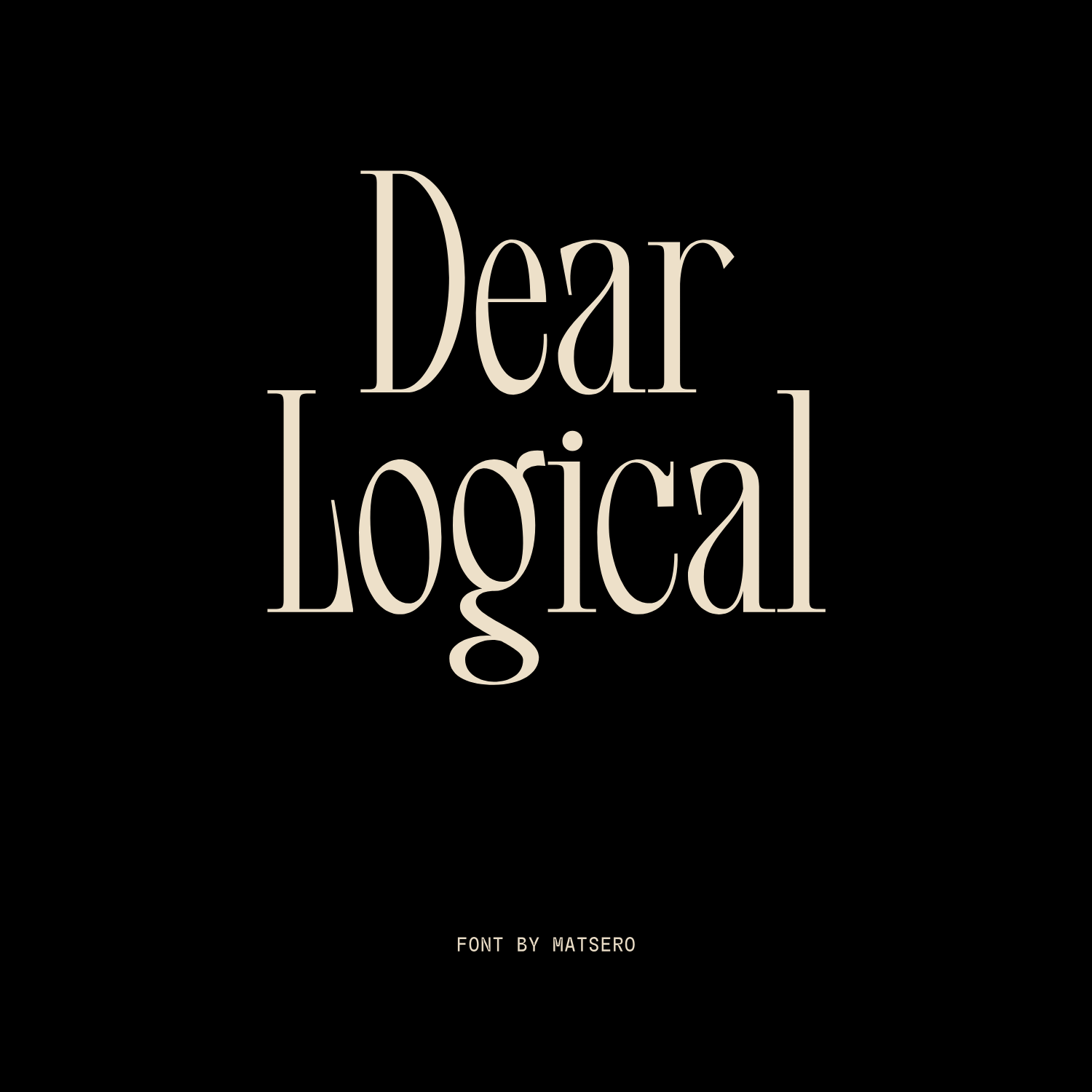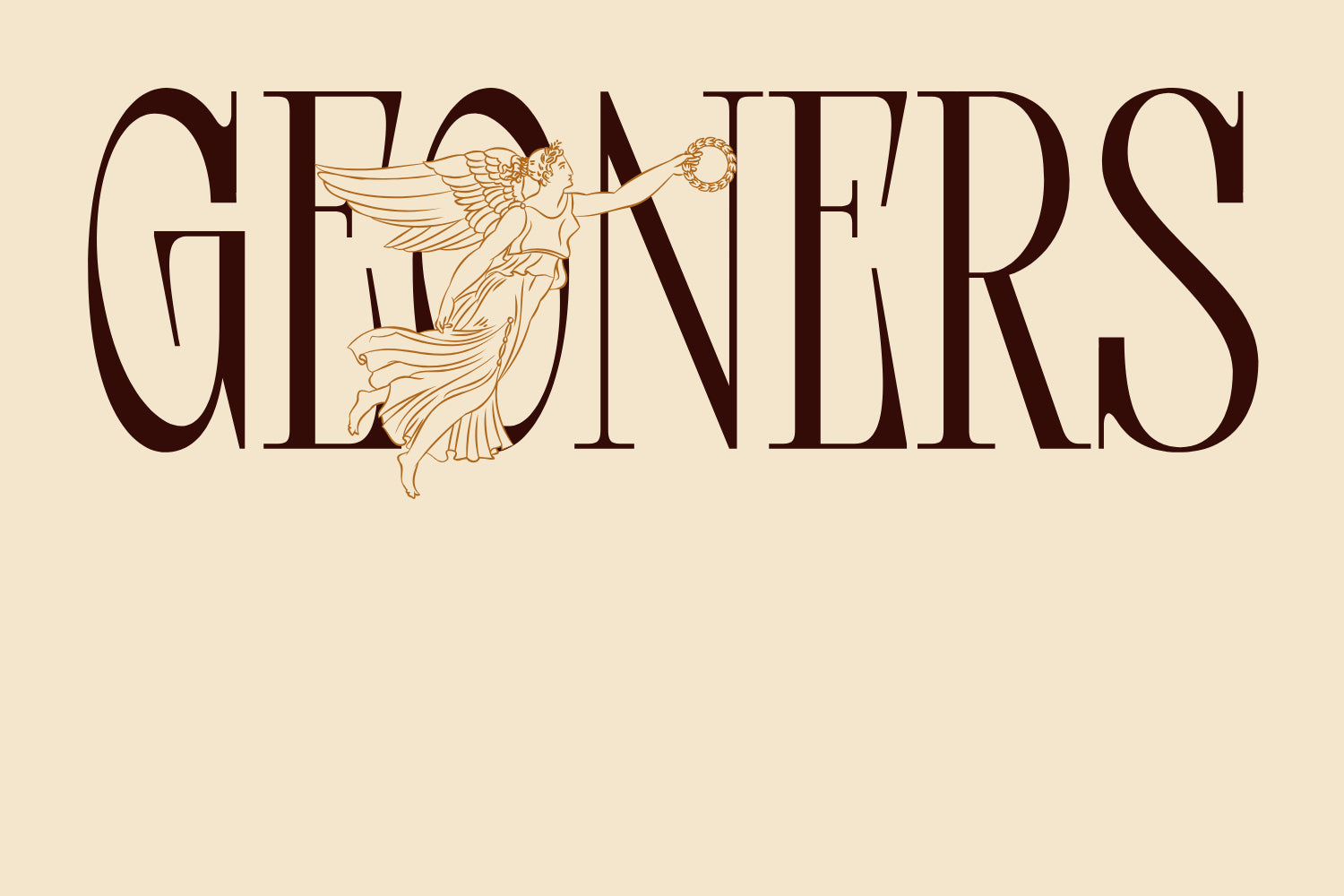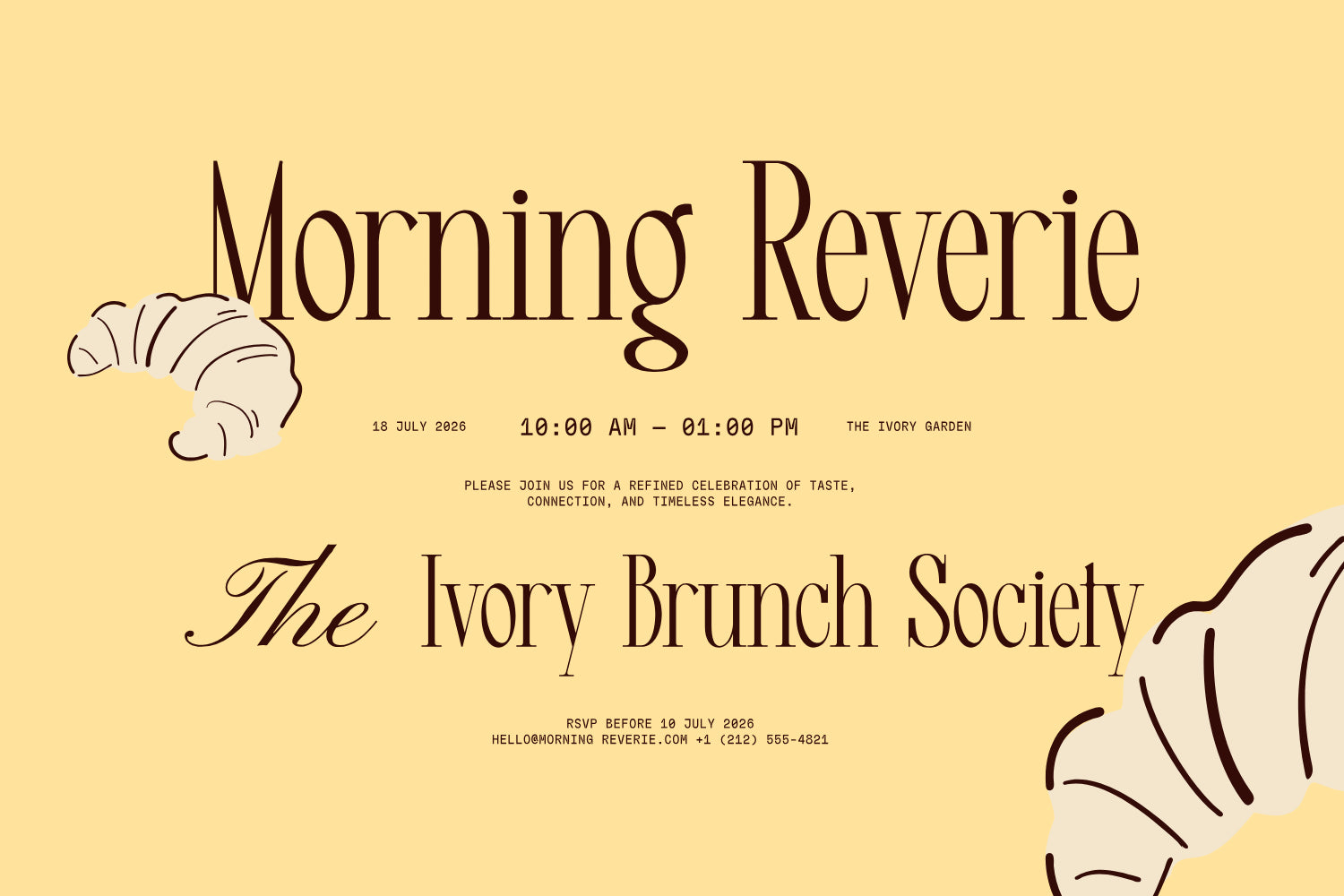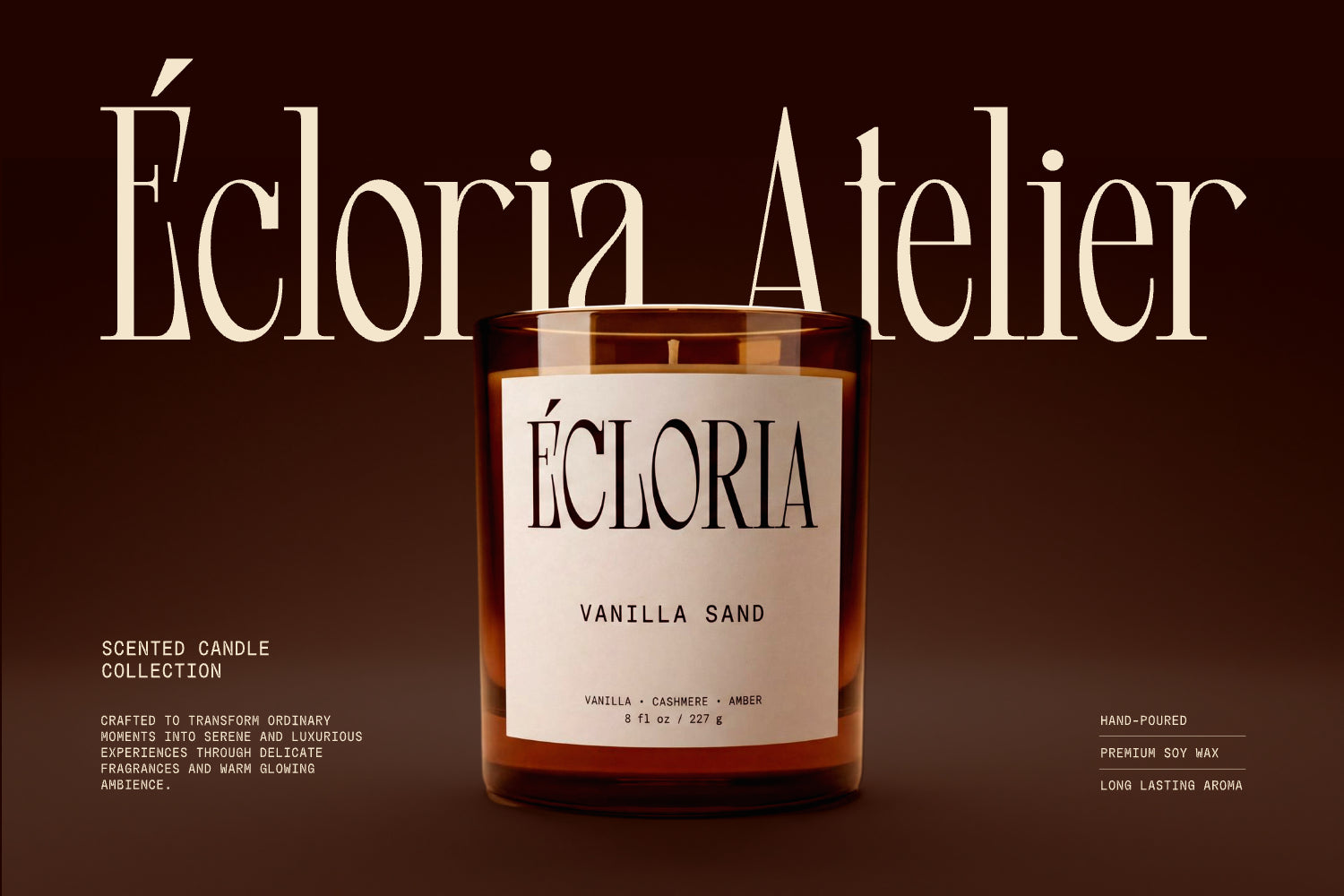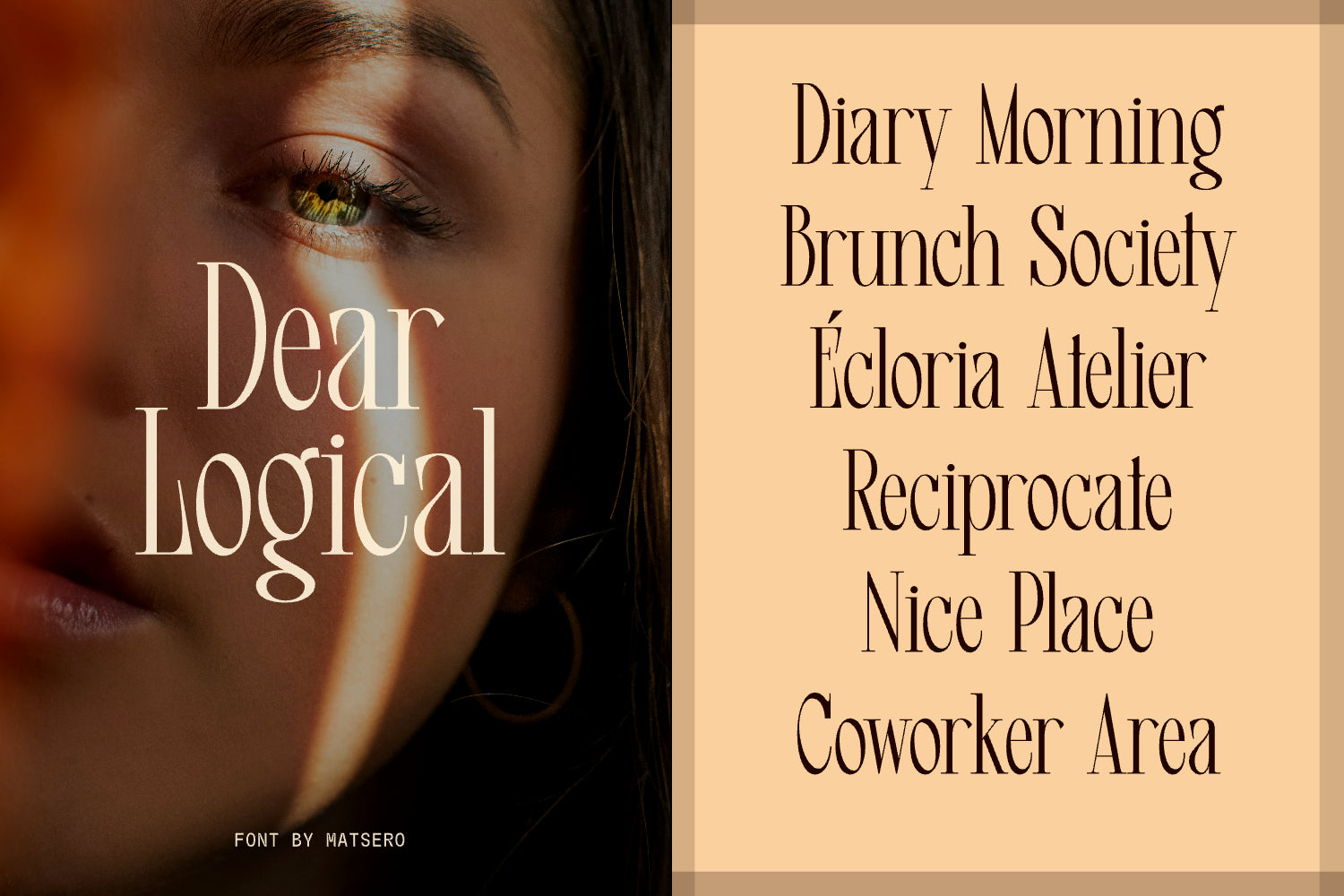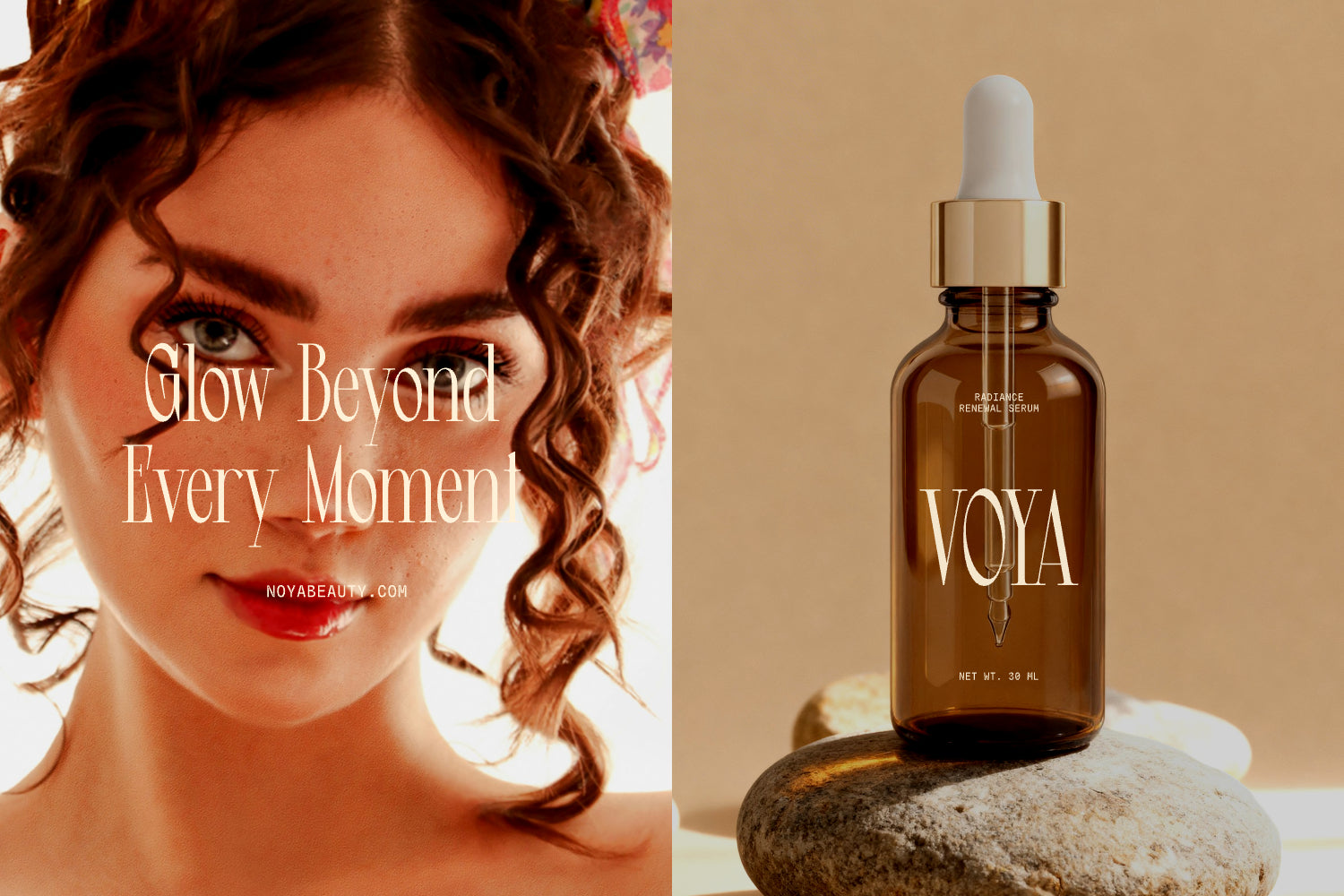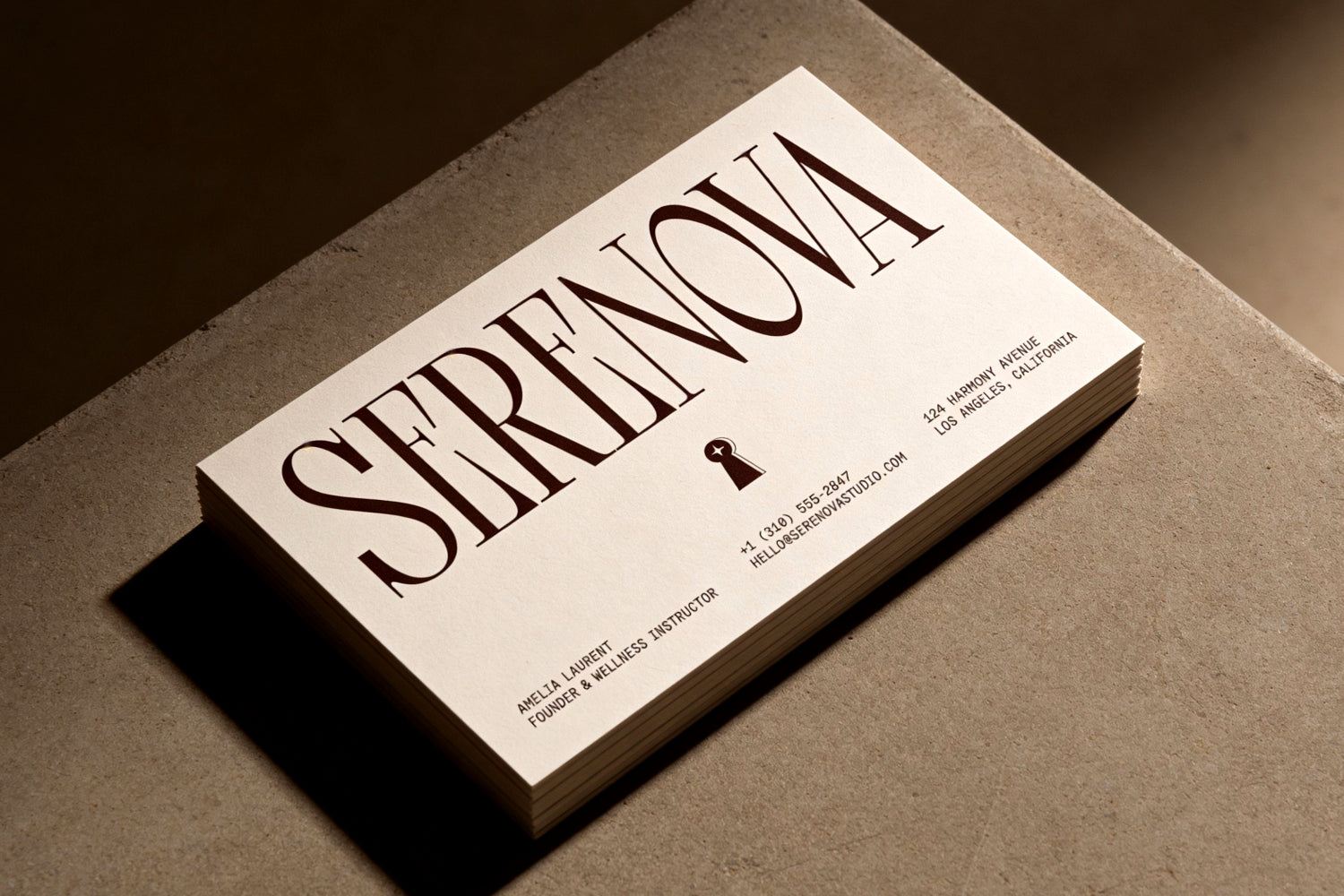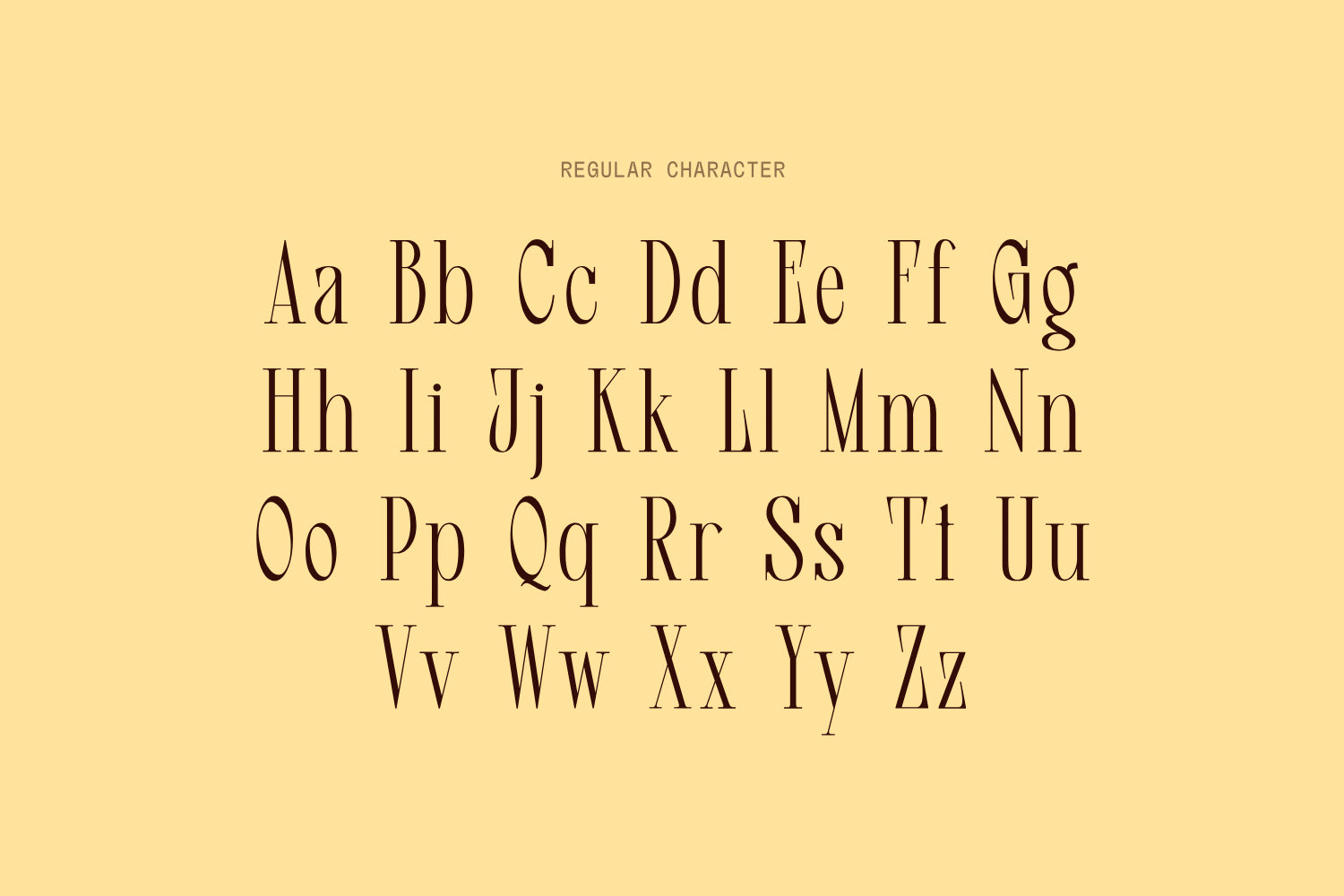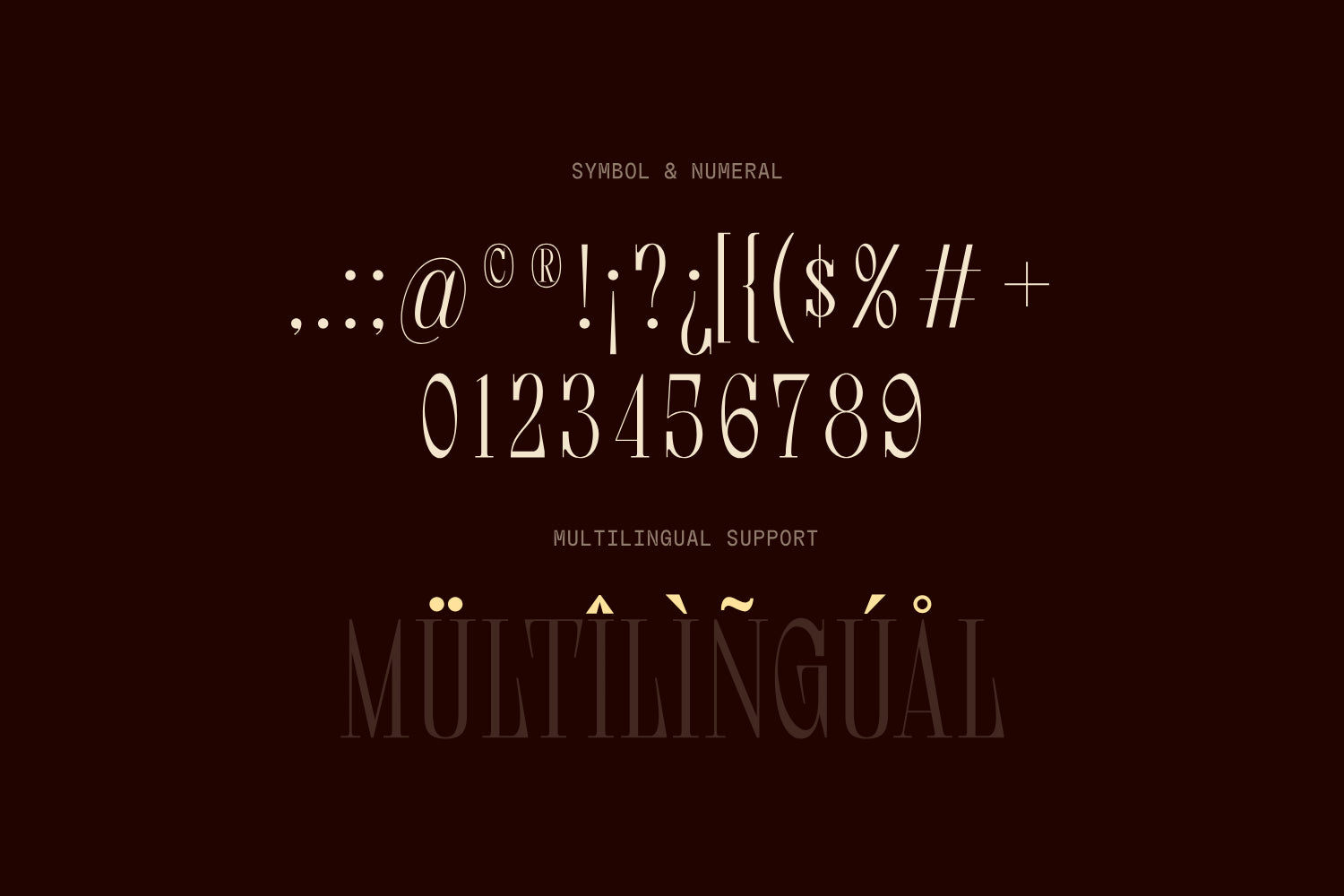
Dear Logical Typeface
Dear Logical is a versatile mixed-style serif typeface that blends upright roman forms with flowing italic alternates in a single font. Defined by ultra-condensed proportions, razor-thin serifs, and high-contrast vertical stems, it offers a sophisticated balance of classic editorial structure and modern high-fashion aesthetics.
- Ligatures and alternate characters
Dear Logical is a mixed-style serif typeface combining upright roman forms with italic alternates, featuring ultra-condensed proportions, thin serifs, and high-contrast vertical stems. It includes OTF, TTF, and WOFF formats, with ligatures, alternate characters, numerals, punctuation, symbols, and multilingual support.